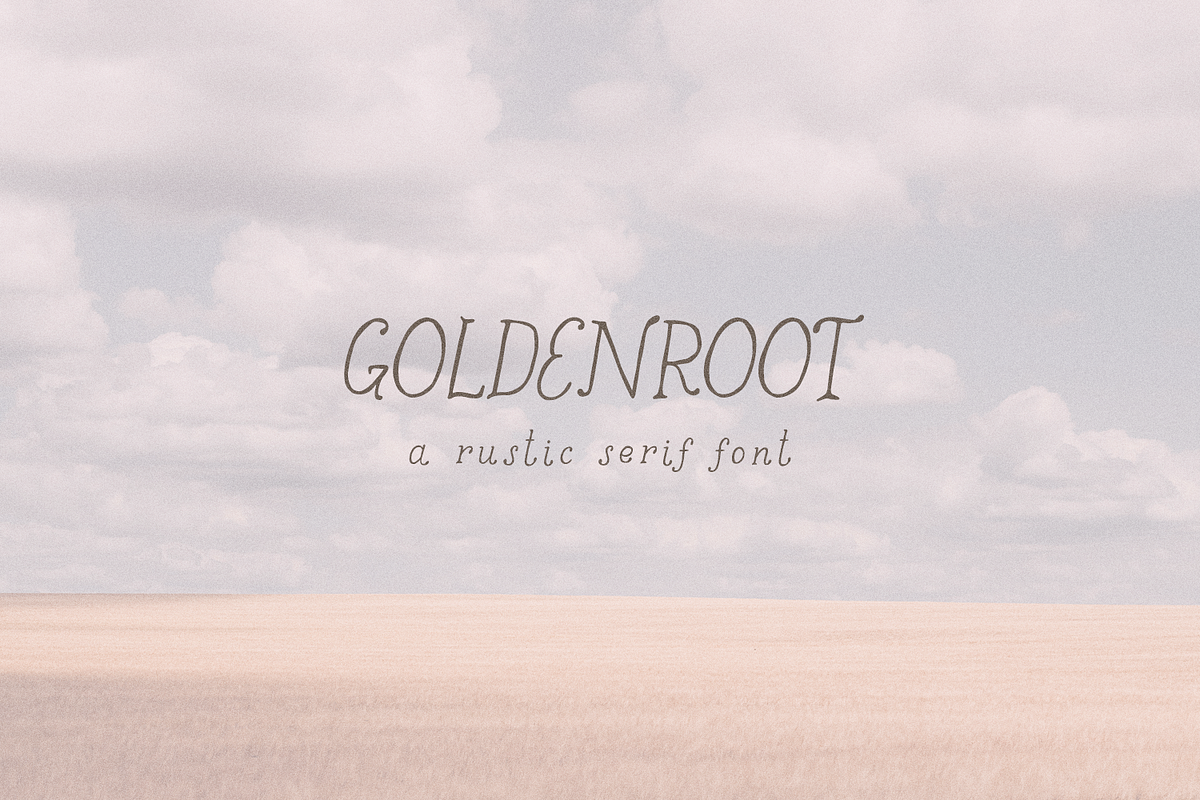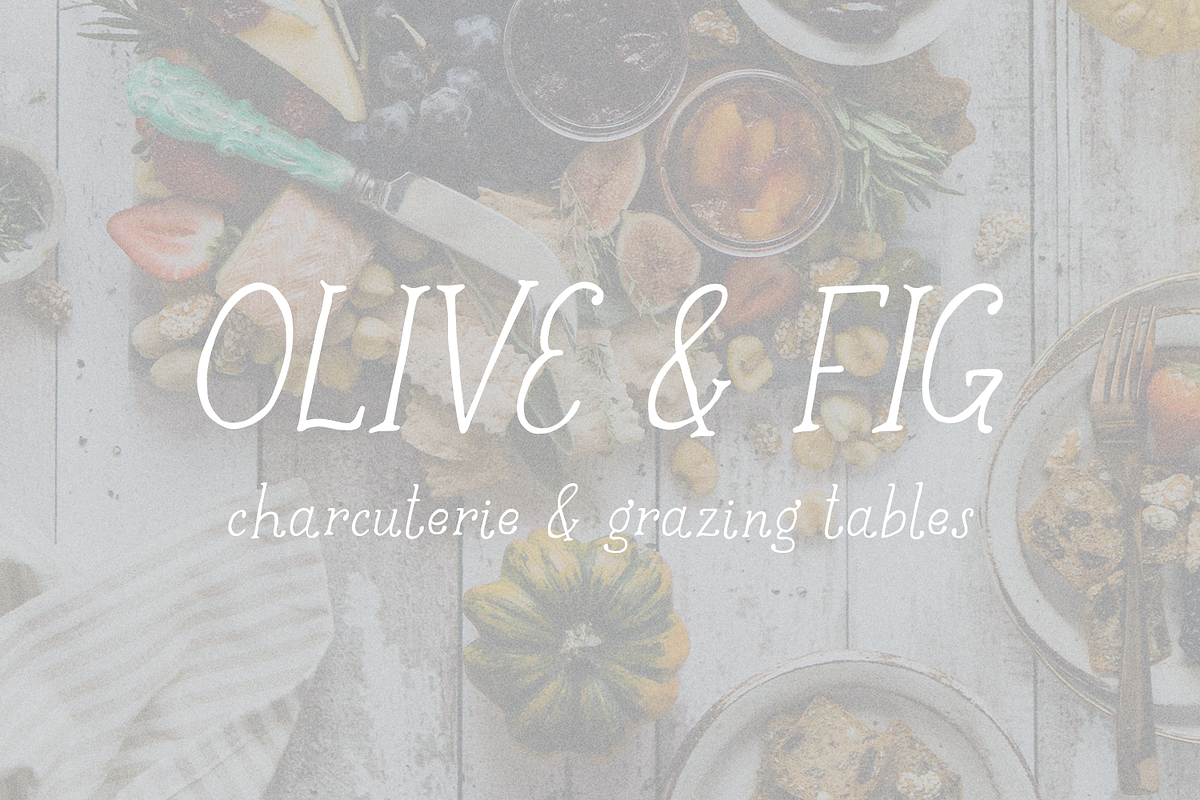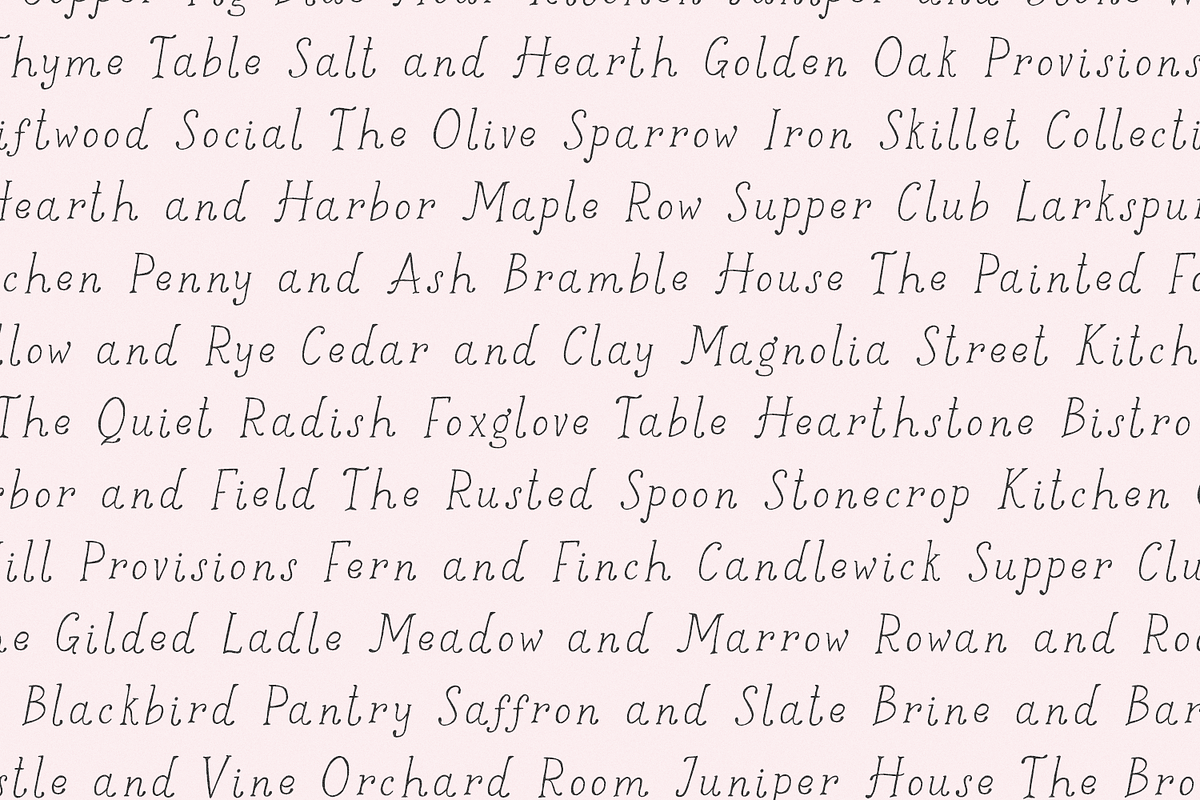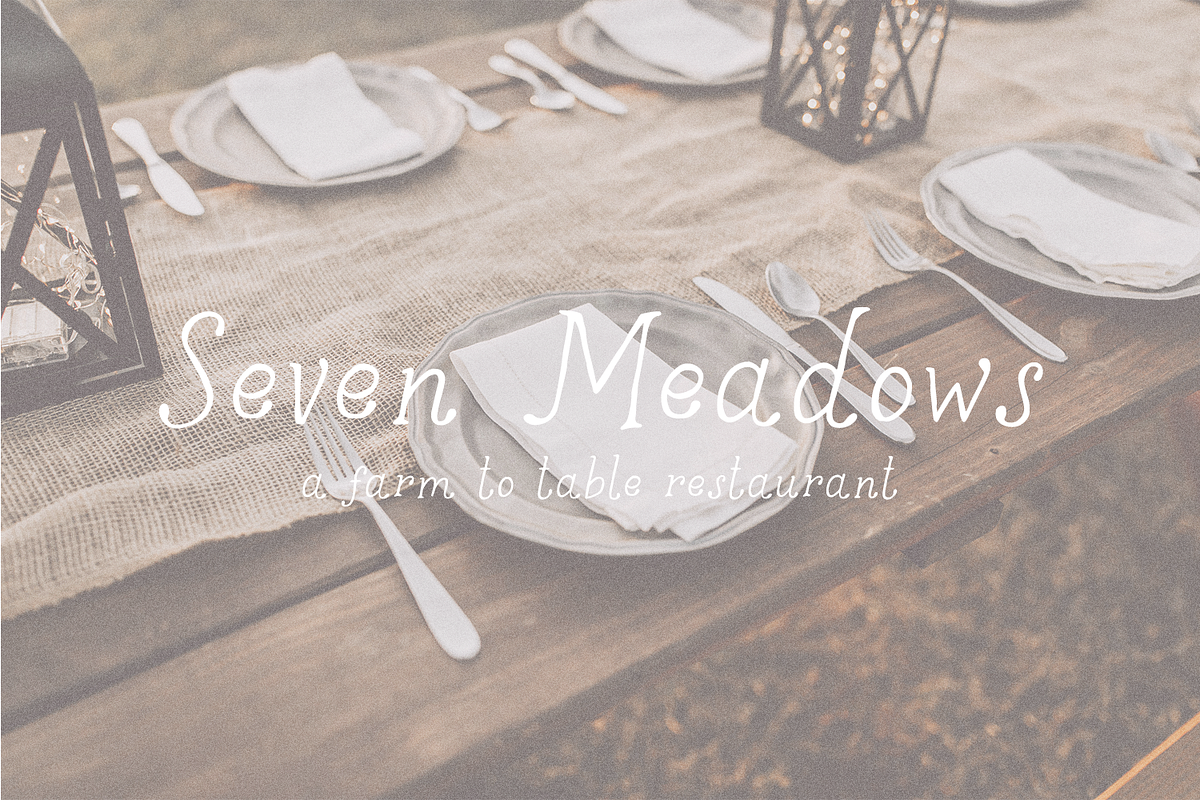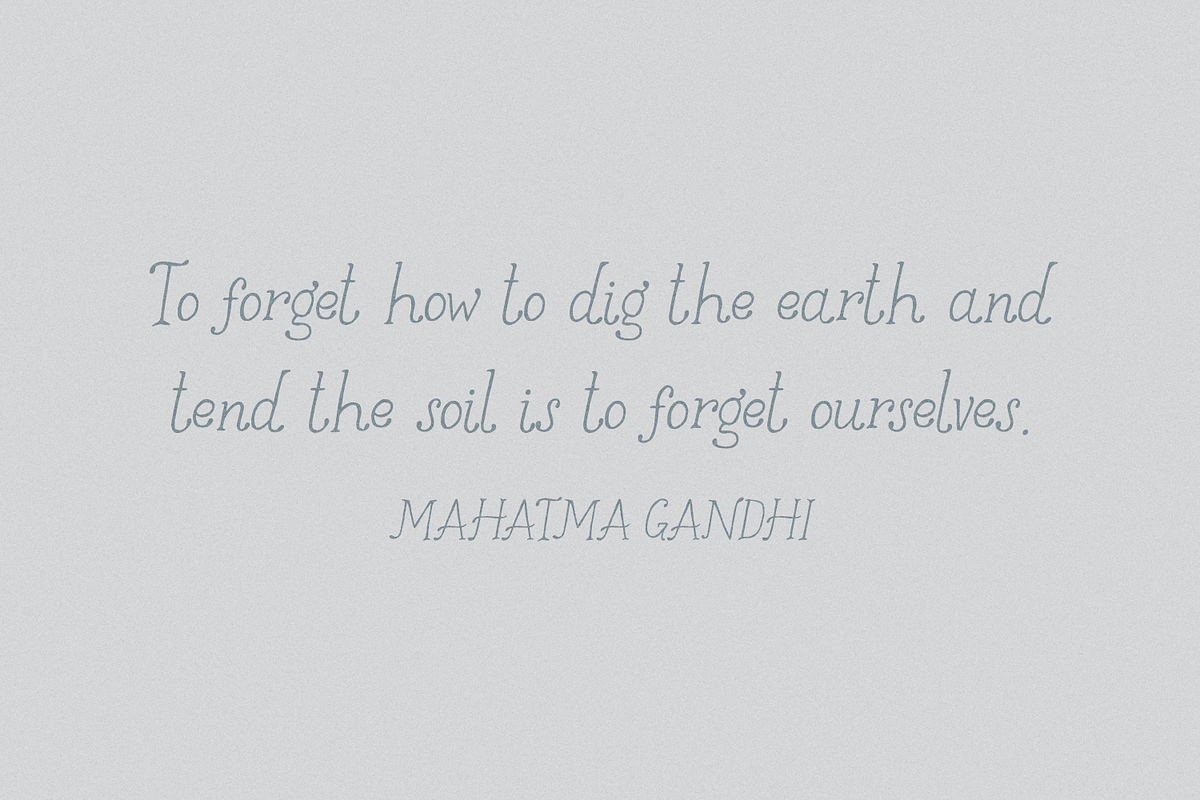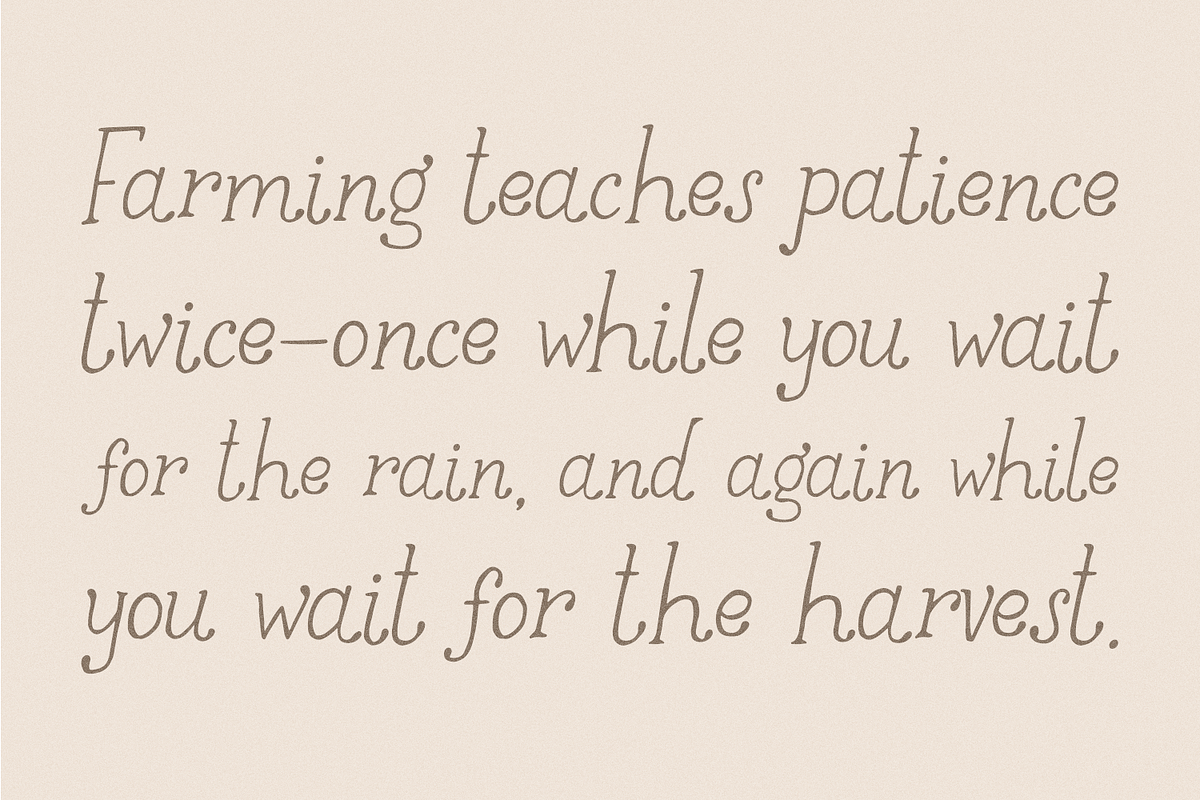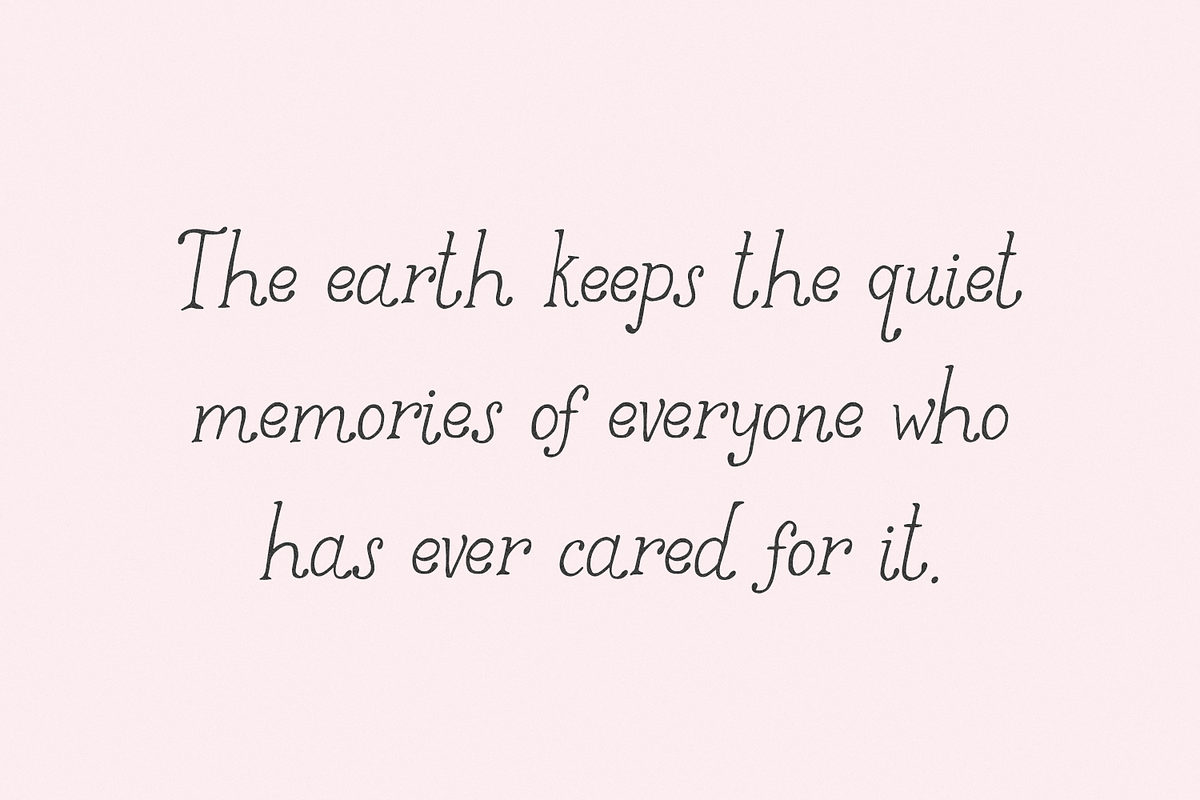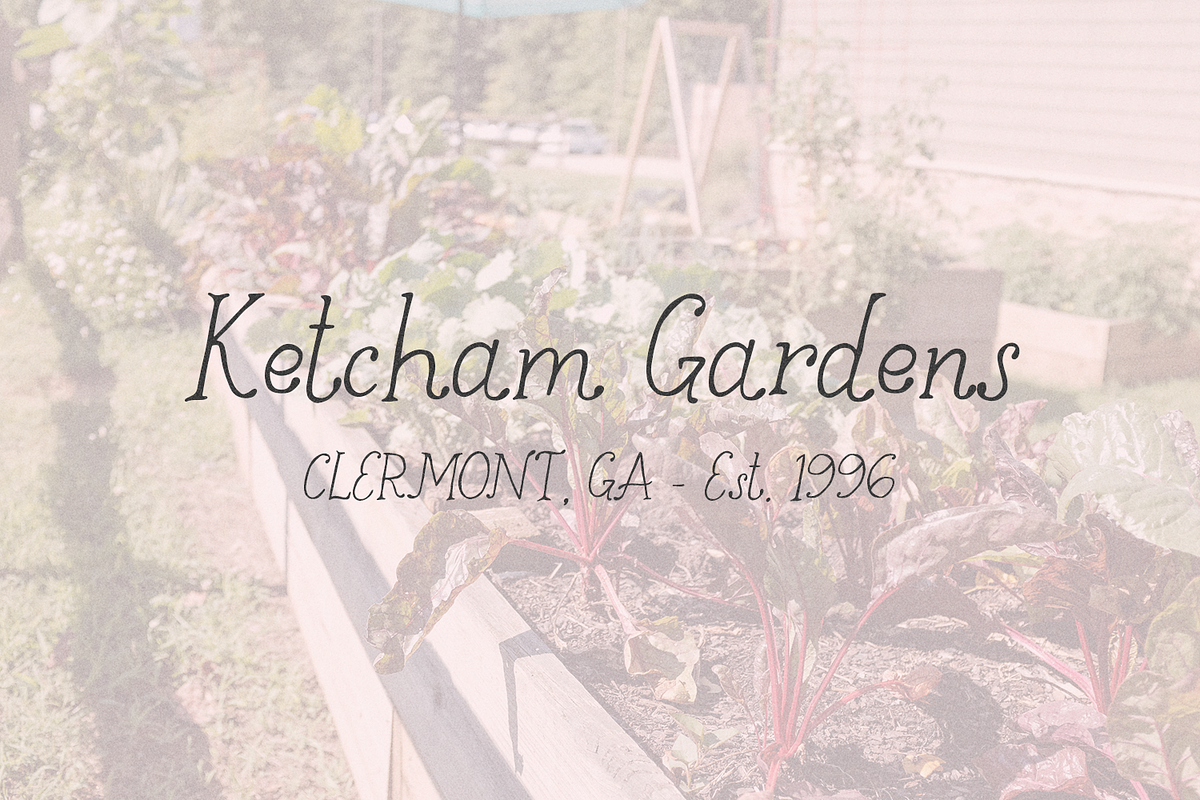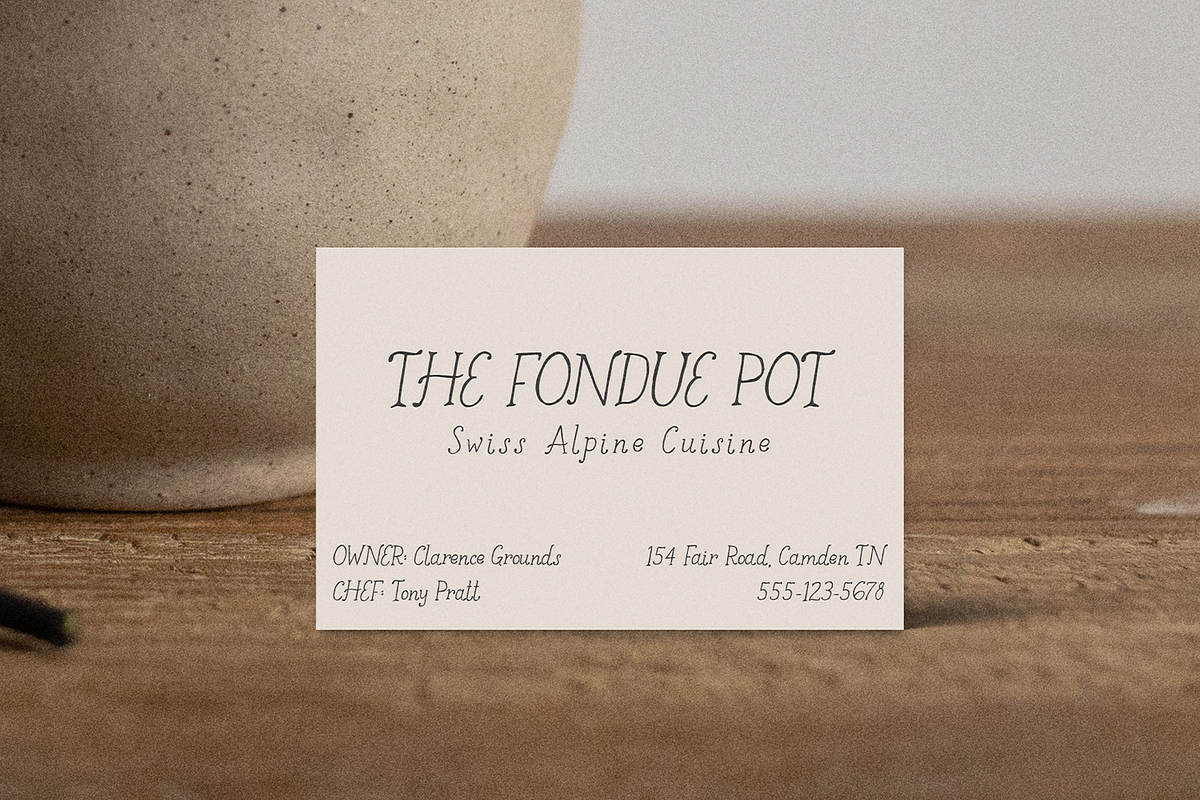
Goldenroot Serif A Rustic Font
Goldenroot Serif is a rustic, leaning serif font. This farmhouse-style font has the perfect amount of shabby-chic, and is hand lettered with intentional irregularity to add to the perfectly imperfect feel. Goldenroot is perfect for rustic logos & branding, greeting cards, painted banners, digital planners, note-taking apps, Canva, Cricut projects, Silhouette projects, designing SVG files, laser cutting projects, & more.
\- full upper + lowercase characters
\- numbers + punctuation
\- Western European language support - English, French, Spanish, Portuguese (Brazil), Portuguese (Portugal), Italian, German (Germany), German (Austria), Dutch, Danish, Swedish, Norwegian (Bokmål and Nynorsk), Finnish, Icelandic, Irish, Welsh